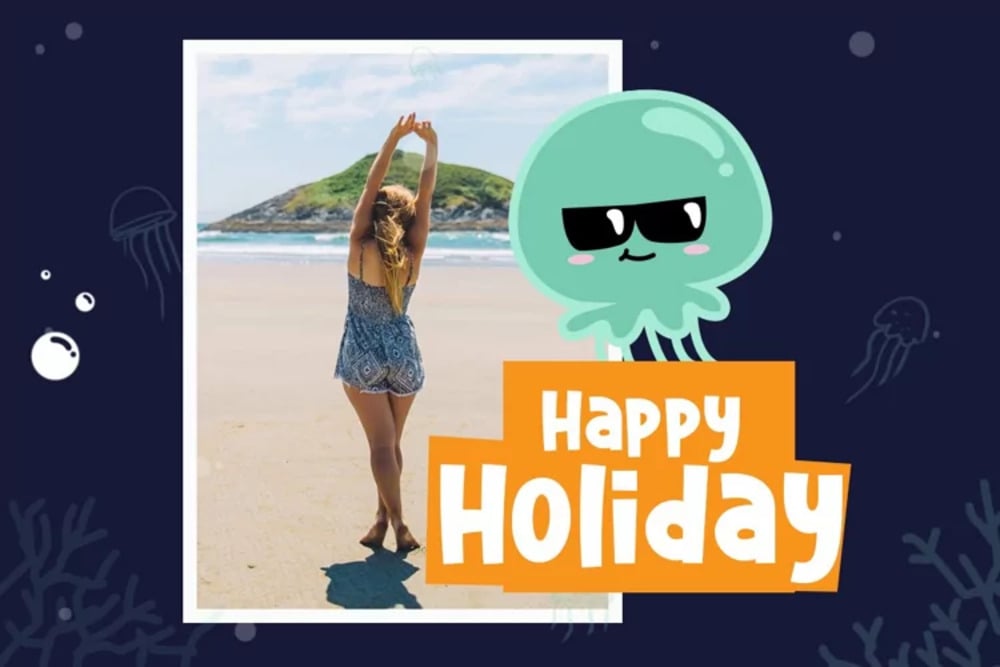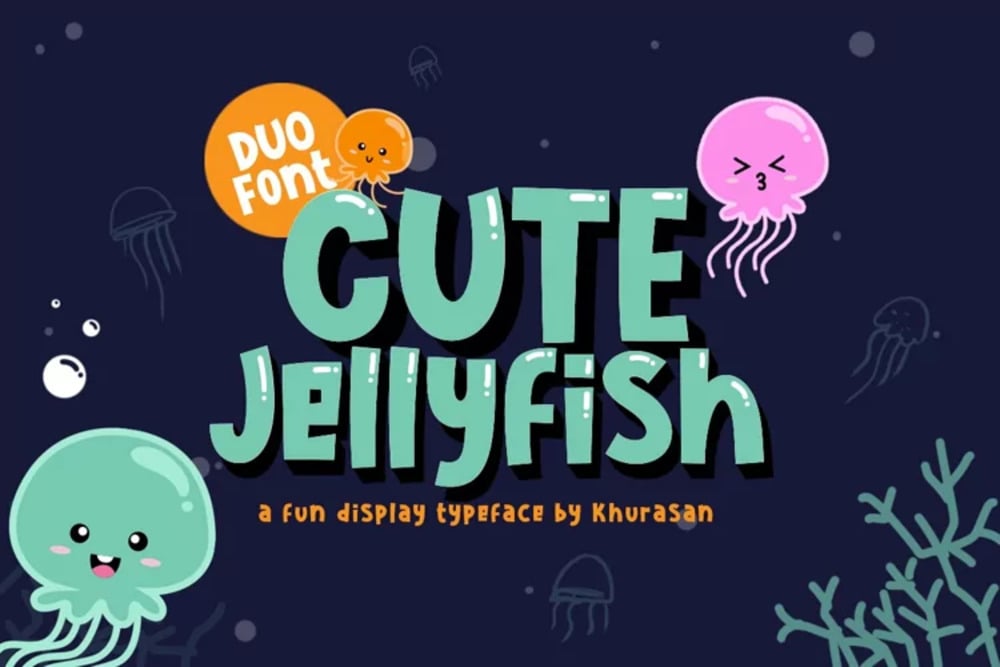
Cute Jellyfish Font
Cute jellyfish font features playful, soft letterforms with whimsical curves, resembling the gentle, flowing movements of jellyfish in the water. The letters have rounded edges and delicate, wavy lines, giving them an airy and light feel. Some letters may have subtle tentacle-like extensions, evoking a sense of playfulness. The overall design is friendly, fun, and perfect for a casual, aquatic theme.